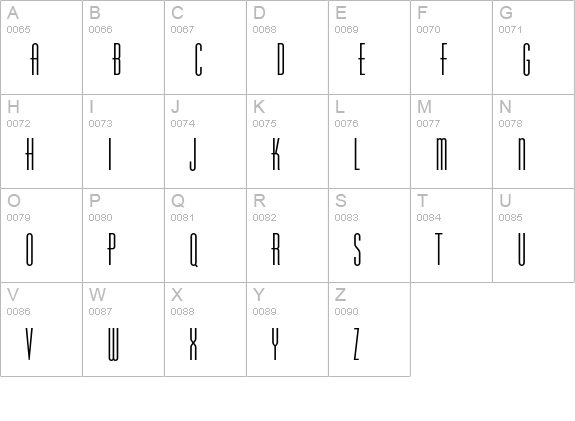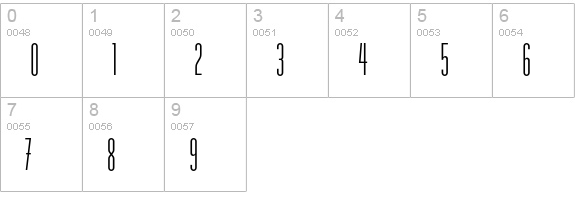
Chrysler-Compressed Font Details
Chrysler-Compressed is a distinctive, condensed-width variant in the Chrysler typeface family \xE2\x80\x94 well suited to design and typography projects.
Chrysler-Compressed font exudes a sense of modernity and sleek sophistication, making it a perfect choice for a wide range of design projects. Its clean lines and condensed style add a touch of elegance and professionalism to any text. With its versatility and readability, Chrysler-Compressed is ideal for branding, logo design, headlines, and more. The best part? Chrysler-Compressed is available for free download at FontsMarket.com. This means that you can easily access this stylish font and elevate your designs without breaking the bank. Don't miss out on the opportunity to enhance your projects with the timeless appeal of Chrysler-Compressed. Download it today and let your creativity shine!